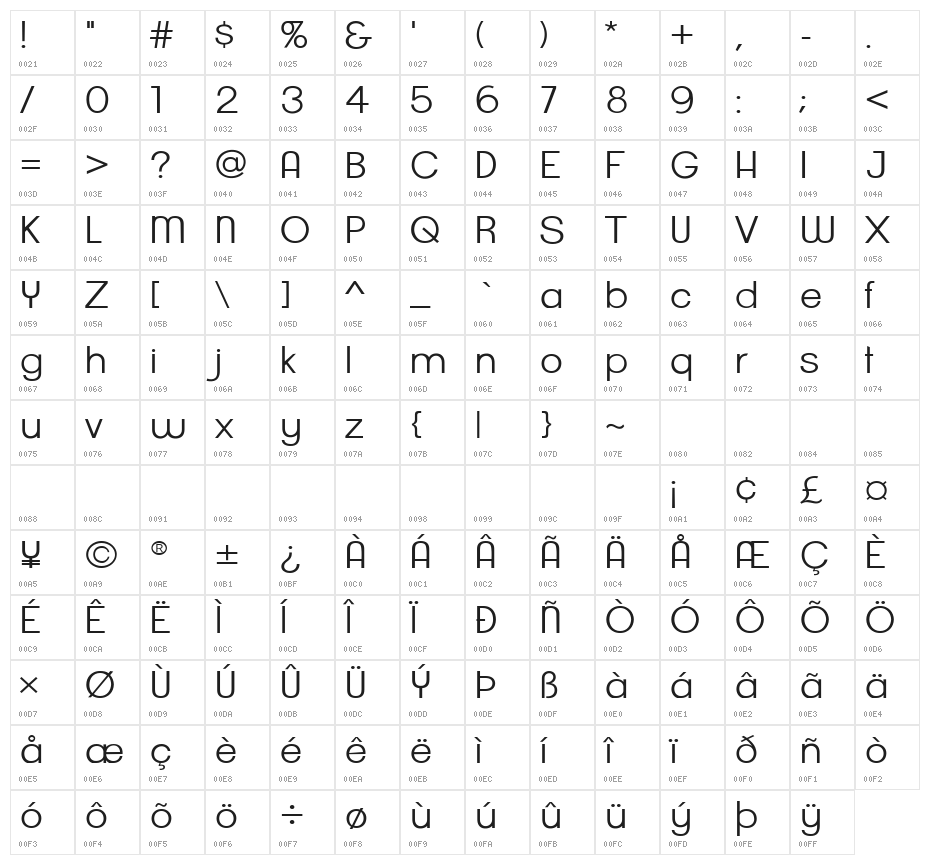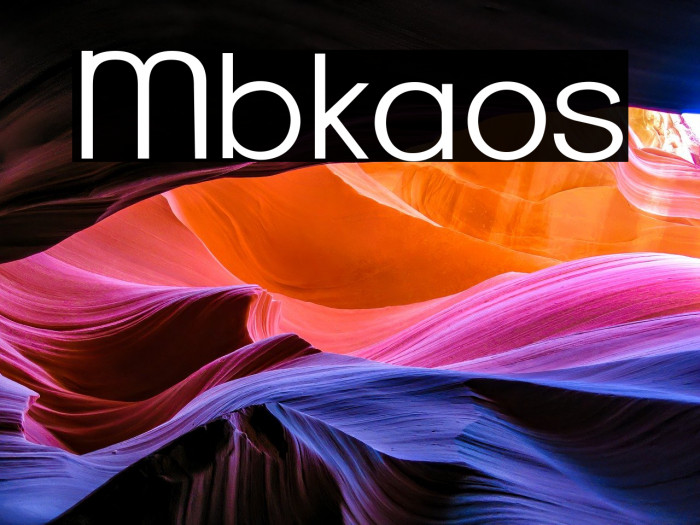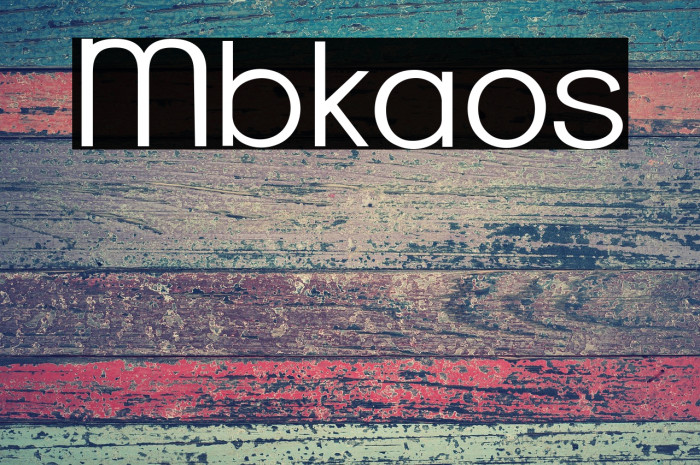
Mbkaos Font
Mbkaos Description
This font features a clean and modern sans-serif design with a geometric structure. The characters are well-balanced with a consistent stroke width, giving it a uniform appearance. The rounded edges and smooth curves provide a friendly and approachable feel. The uppercase and lowercase letters maintain a harmonious relationship, while the numerals are clear and easy to read. The special characters are distinct and integrate seamlessly with the overall style, making it versatile for various applications.
| Use Case | Headlines, Body text, Logos |
| Proposed Projects | Ideal for branding, web design, advertising, and editorial projects where a modern and clean look is desired. |